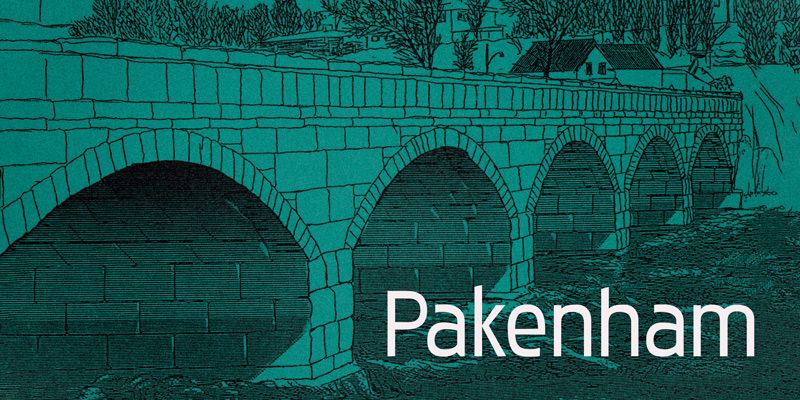
Pakenham
Pakenham was inspired by Paul Renner’s 1950s creation, Steile Futura. This sans serif font has an upright, modern look with gently turned corners and generously proportioned loops.